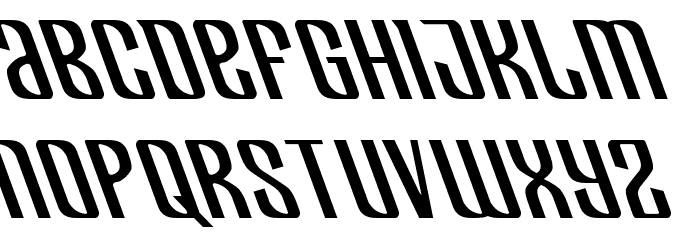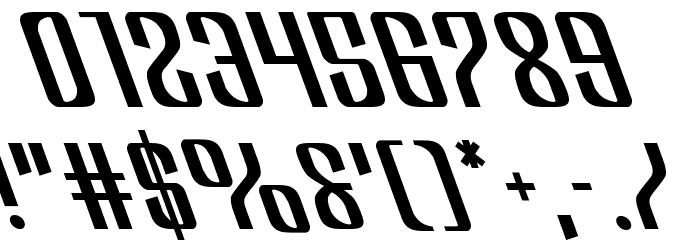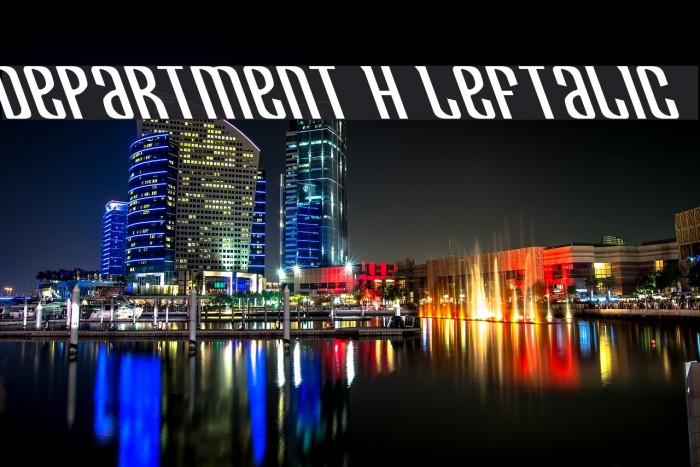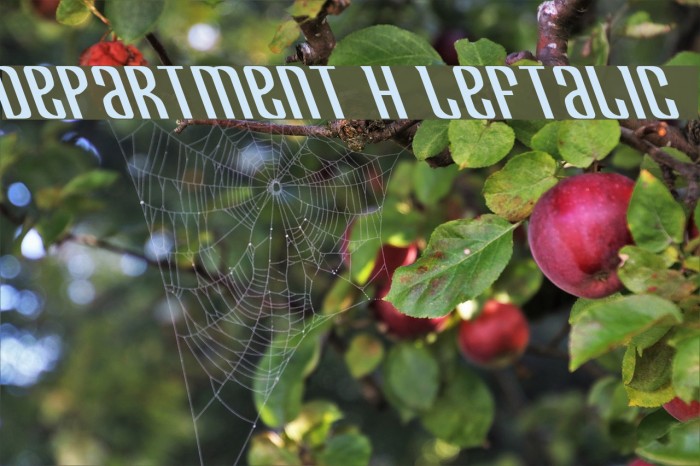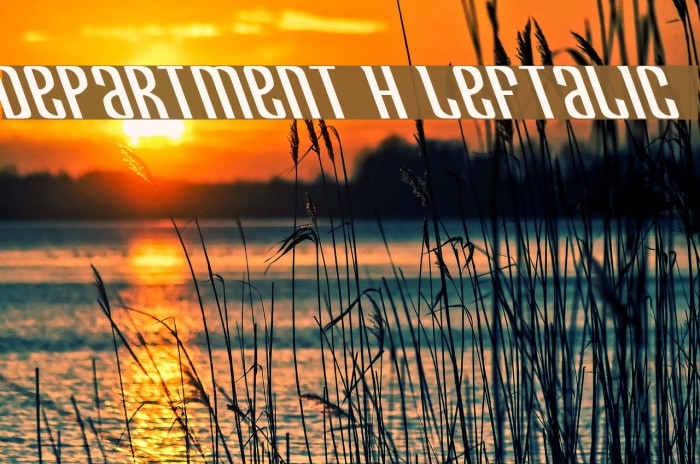
Department H Leftalic Font
This font features a bold, italicized style with a distinct leftward slant, giving it a dynamic and energetic appearance. The characters are designed with a modern flair, incorporating sharp angles and clean lines that contribute to its contemporary look. The uppercase and lowercase letters maintain a consistent style, ensuring readability while adding a unique twist to traditional letterforms. The numerals and special characters are crafted to match the overall aesthetic, making this font versatile for various design applications. Its bold weight and italic nature make it stand out, suitable for projects that require a strong visual impact.
A bold, left-italicized font with a modern, dynamic style.
- Font: Department H Leftalic
- Proposed Projects: Ideal for branding, advertising, posters, and any design needing a bold, modern touch.